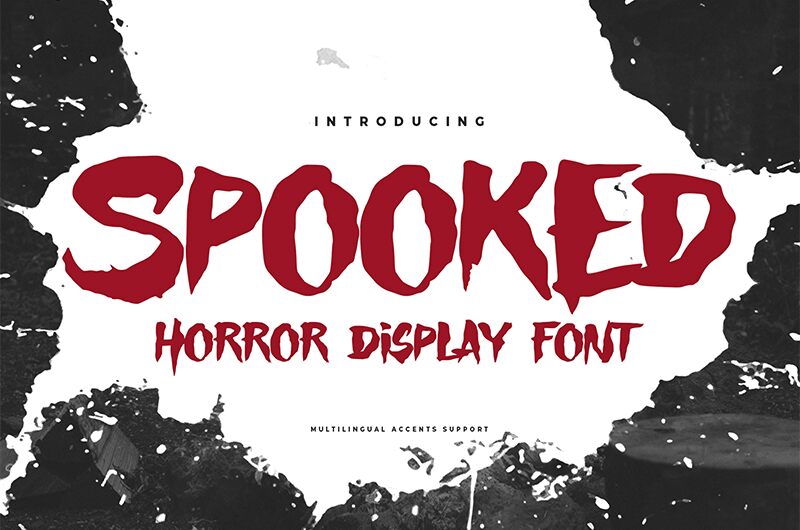
Spooked
Hello Everyone, meet Spooked – a spooky display font designed by Gassstype. With its bold and semi-expanded style, this horror-inspired brush font adds a touch of drama to any project. Whether you're creating labels, posters, or project designs, Spooked will give your work a modern and authentic look.
Its textured and unique characteristics provide a natural feel that's perfect for DIY projects, branding, packaging, greeting cards, websites, and even photography overlays. Activate the 8 alternate glyphs in the OpenType panel to add even more variety to your designs.